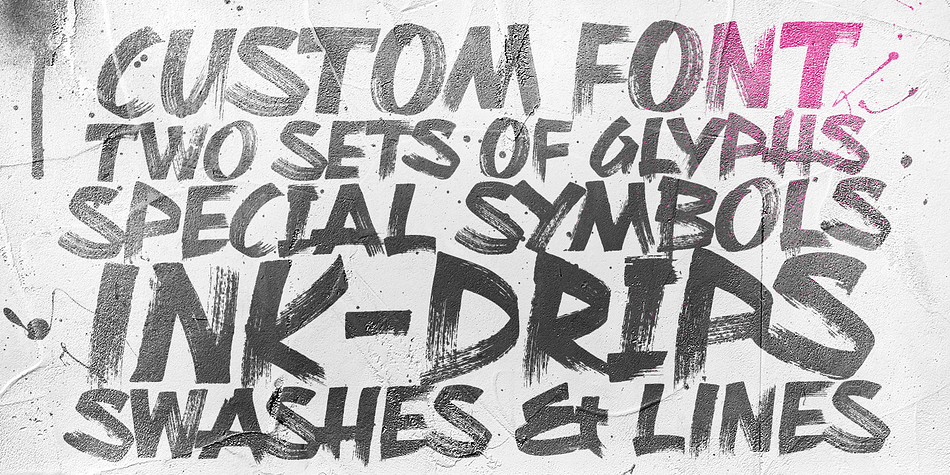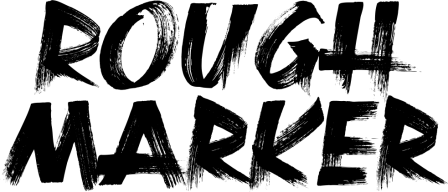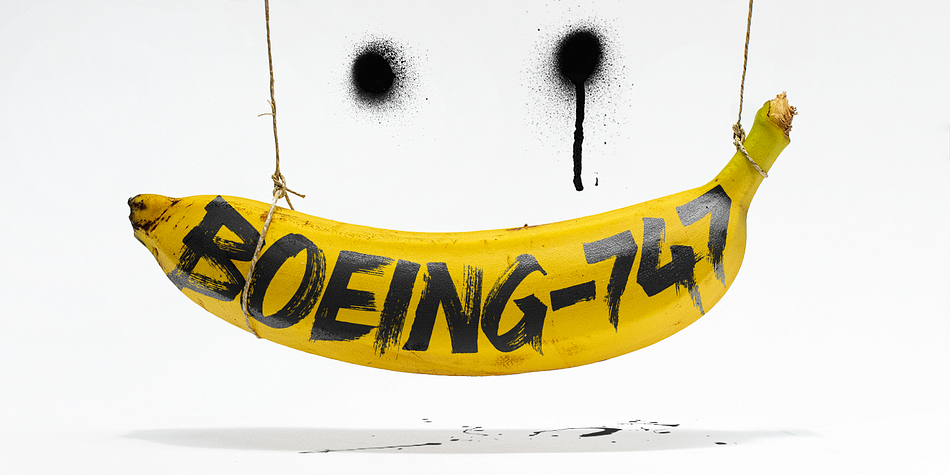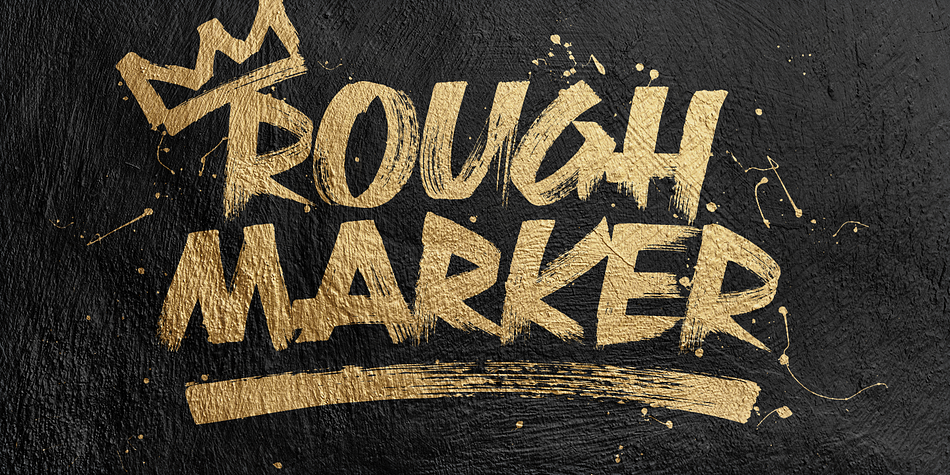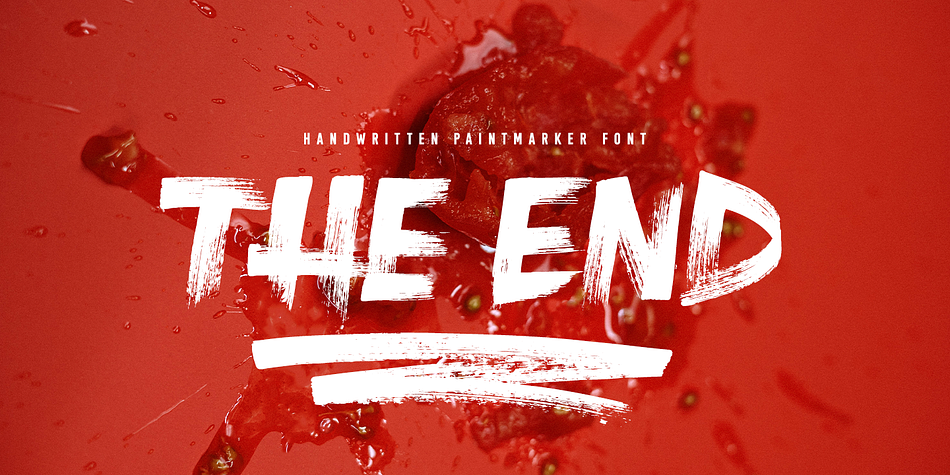
Designed by Christoph Zeugswetter, Rough Marker is a multiple classification font family. This typeface has two styles and was published by xtoph.
“Rough Marker” is a bold and stylish handwritten fontface. It comes with 2 variation of letters, swashes & lines, ink drips and some bonus symbols.